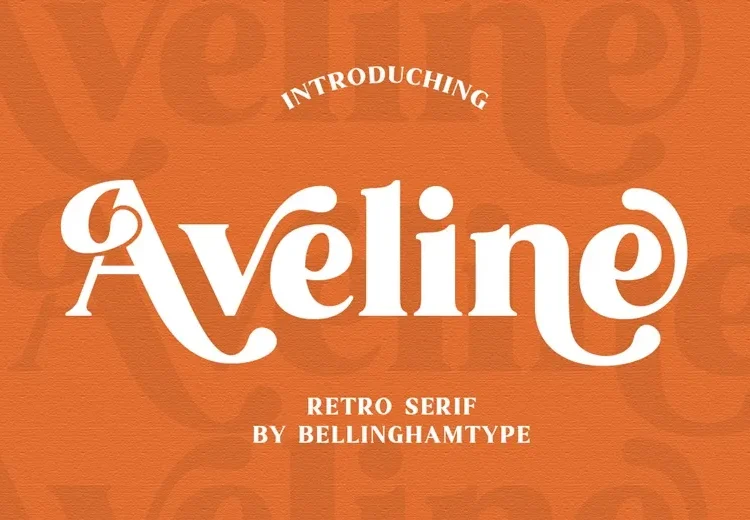
Aveline Font
Aveline is a stylish and modern retro serif font that effortlessly combines timeless design with a contemporary twist.
Its sophisticated curves and sharp edges make it the perfect choice for a variety of design applications, including photography, watermarks, social media marketing, advertisements, logos, branding, invitations, product design, labels, stationery, packaging, and more.
Aveline adds an elegant yet nostalgic touch to your projects, making them stand out with a distinct character.
This versatile font is suitable for both digital and print designs, ensuring that your work has a lasting impact no matter the medium.